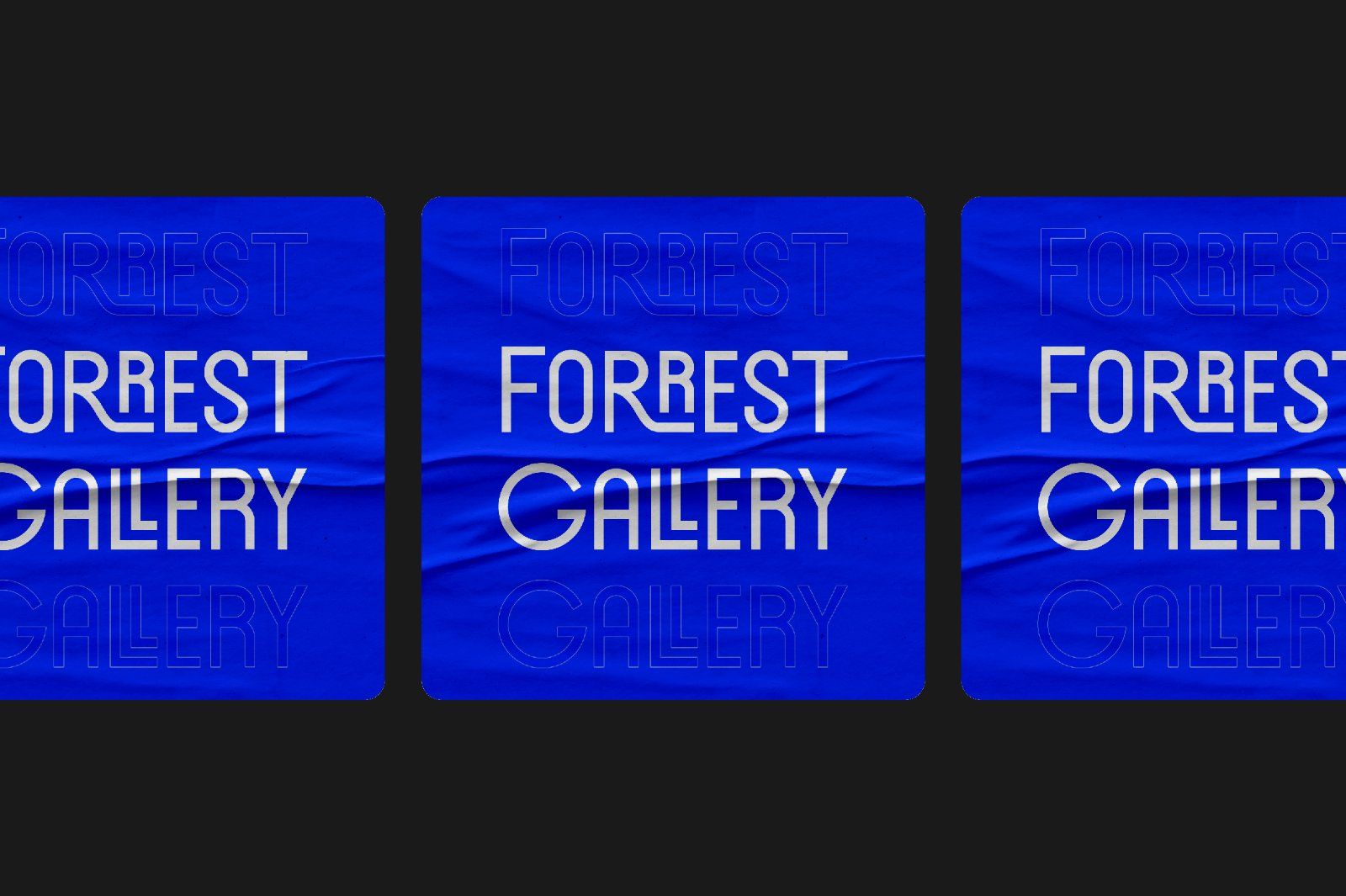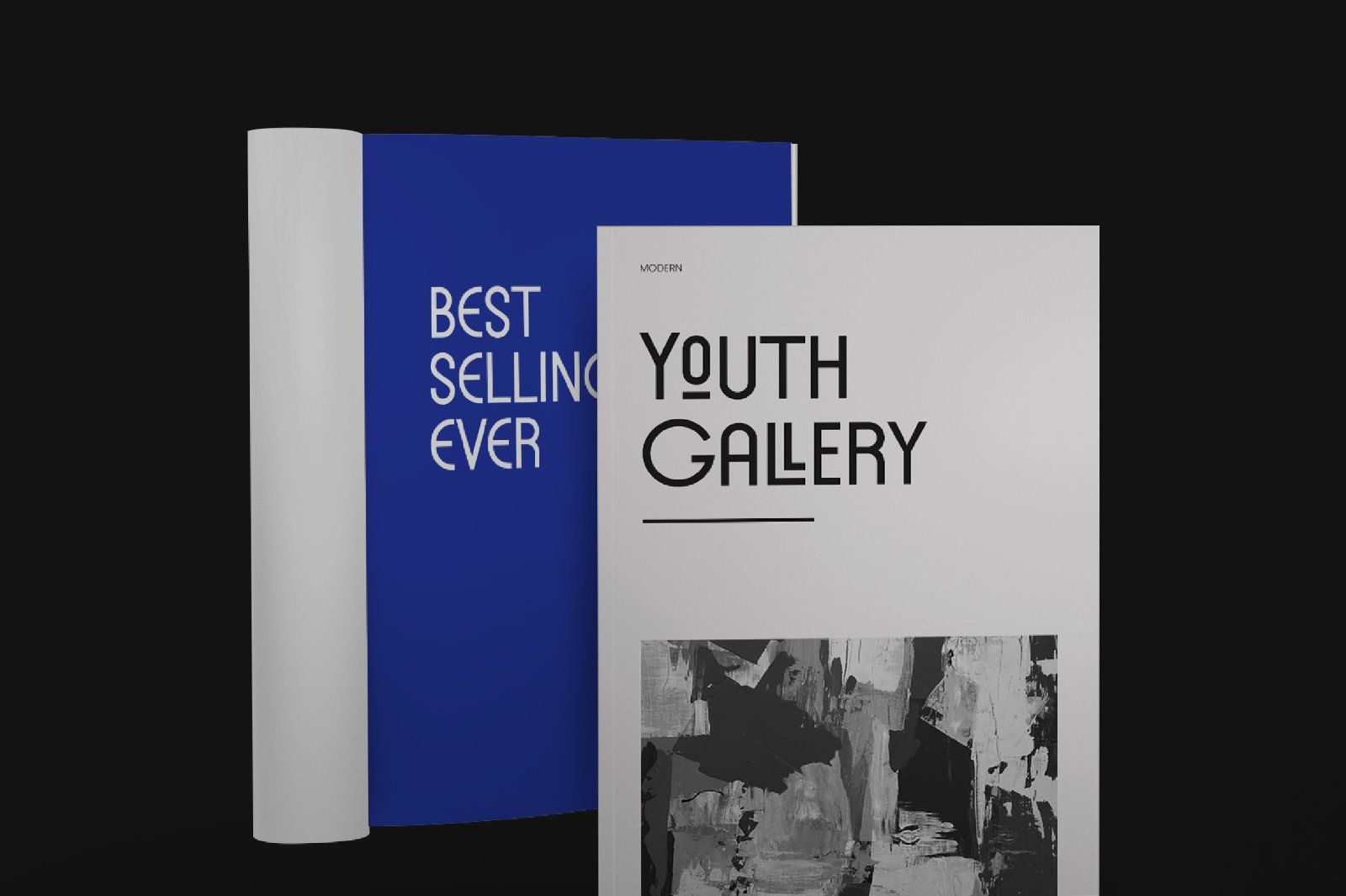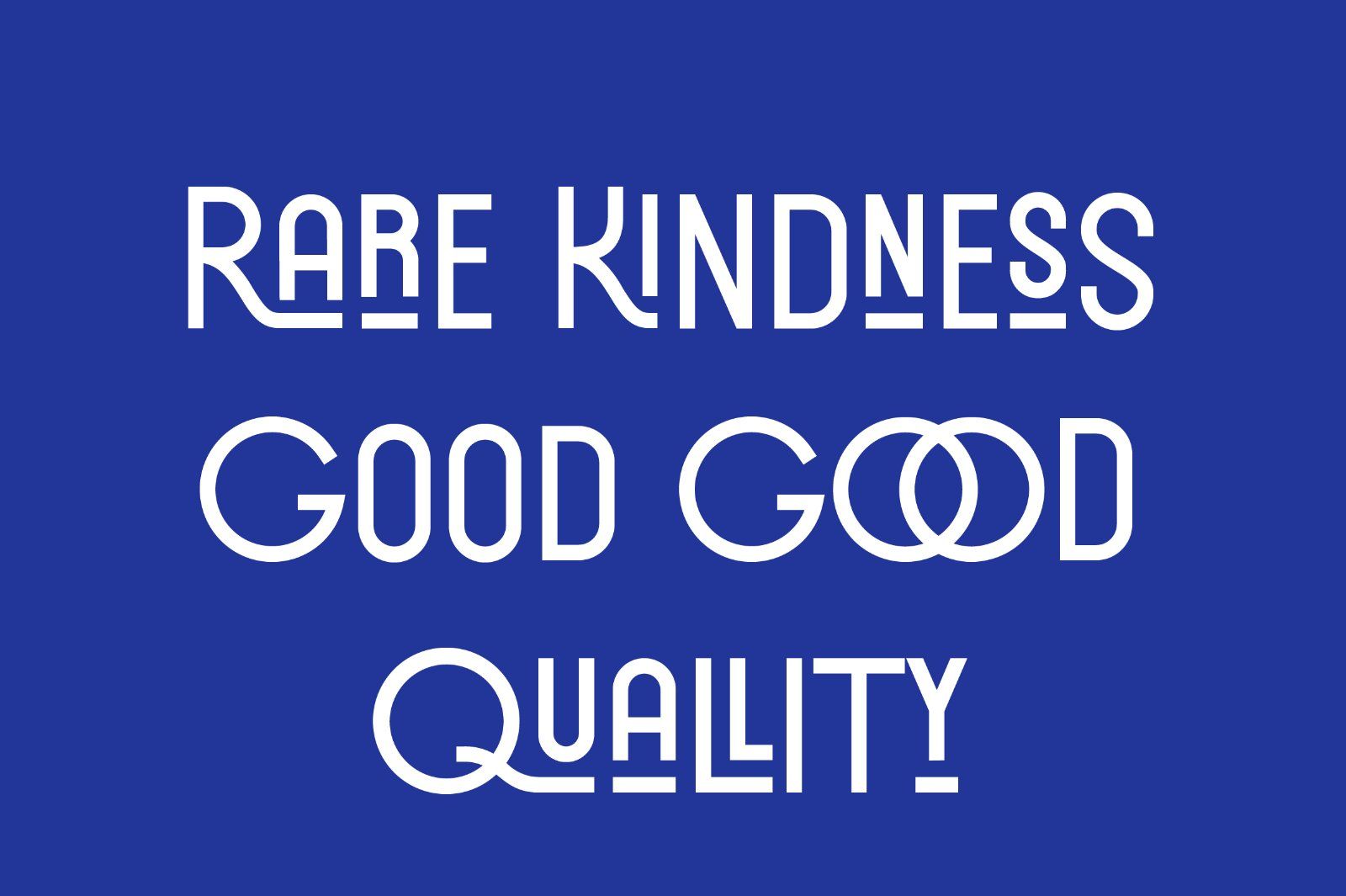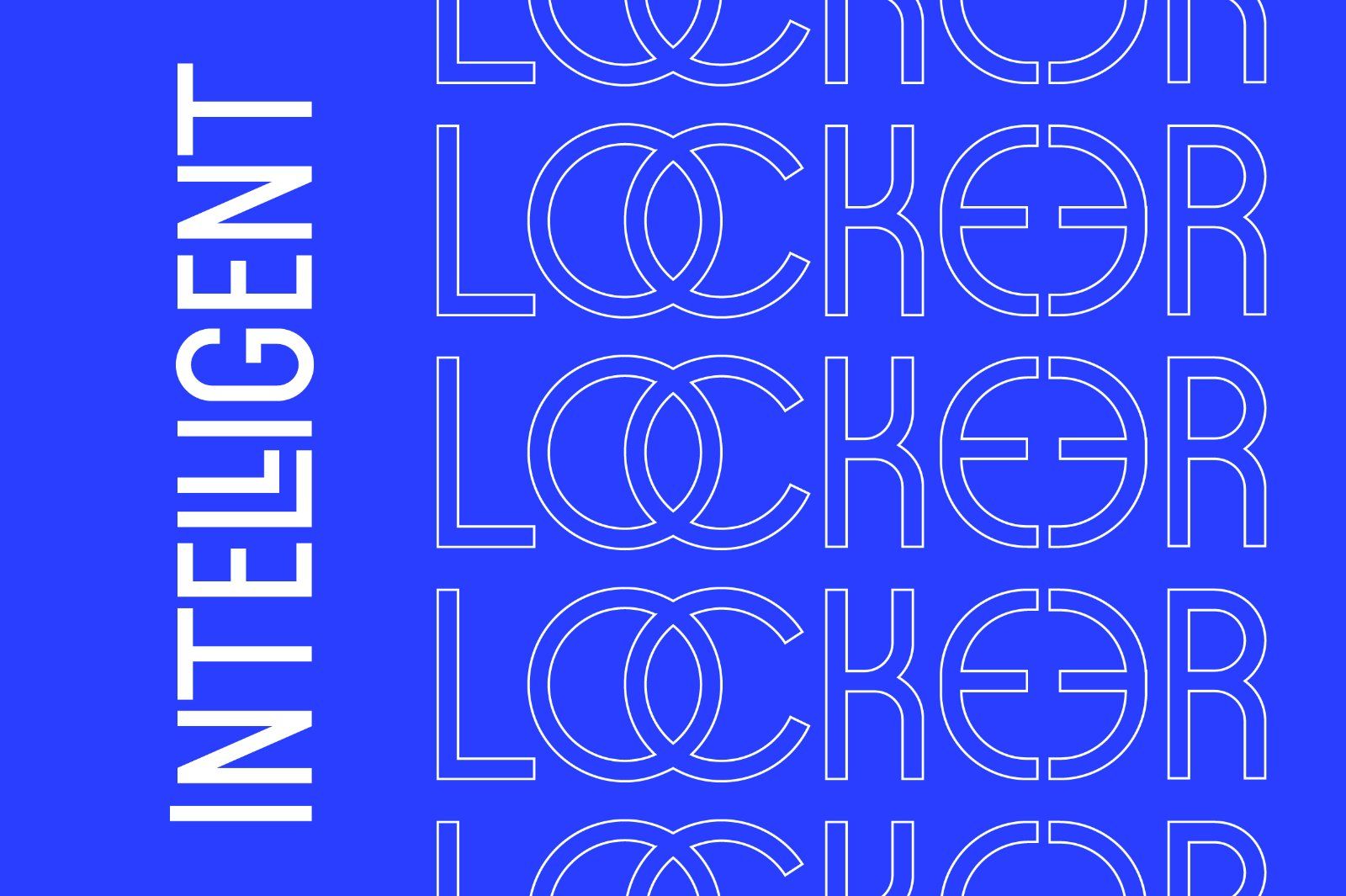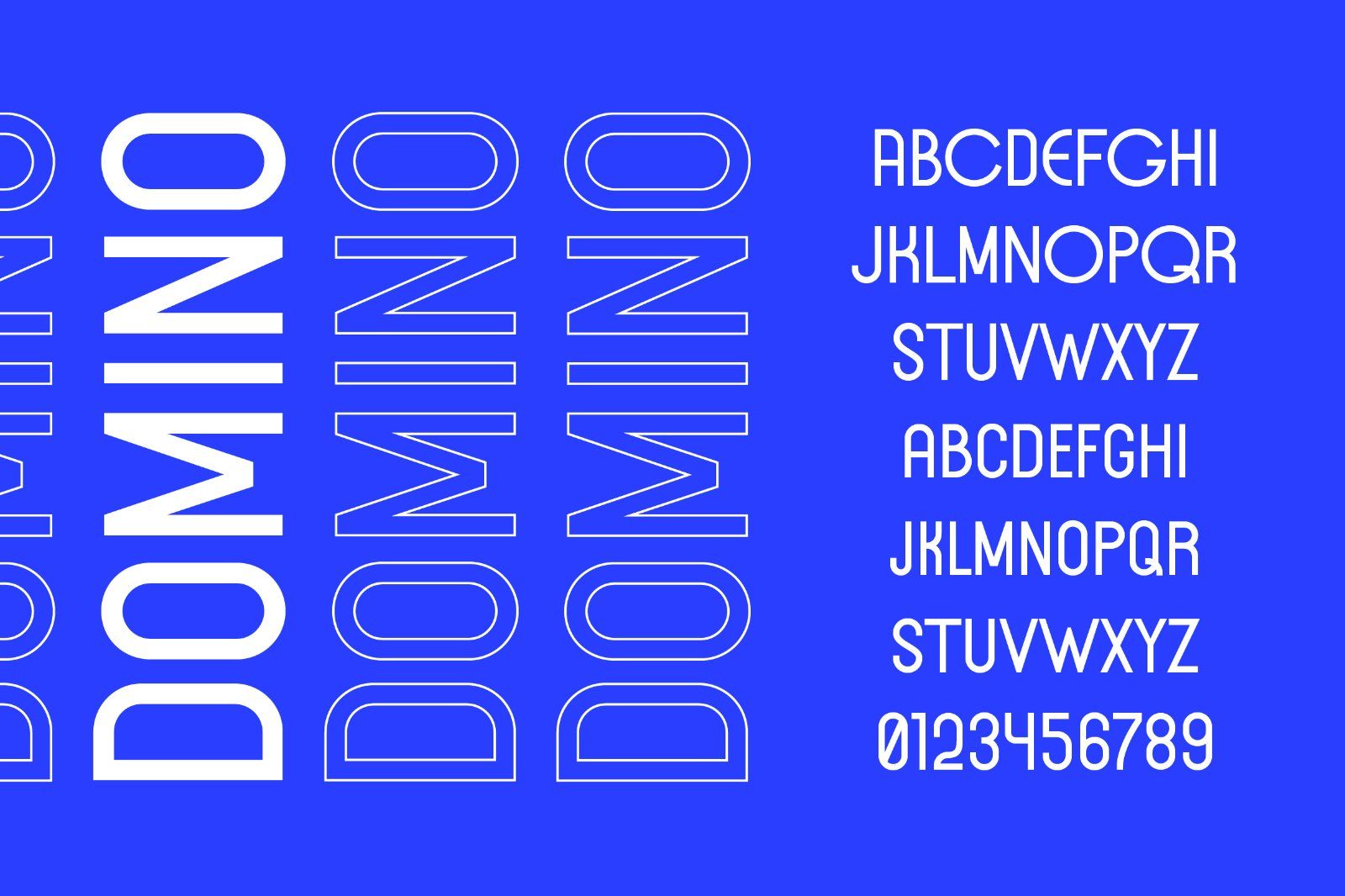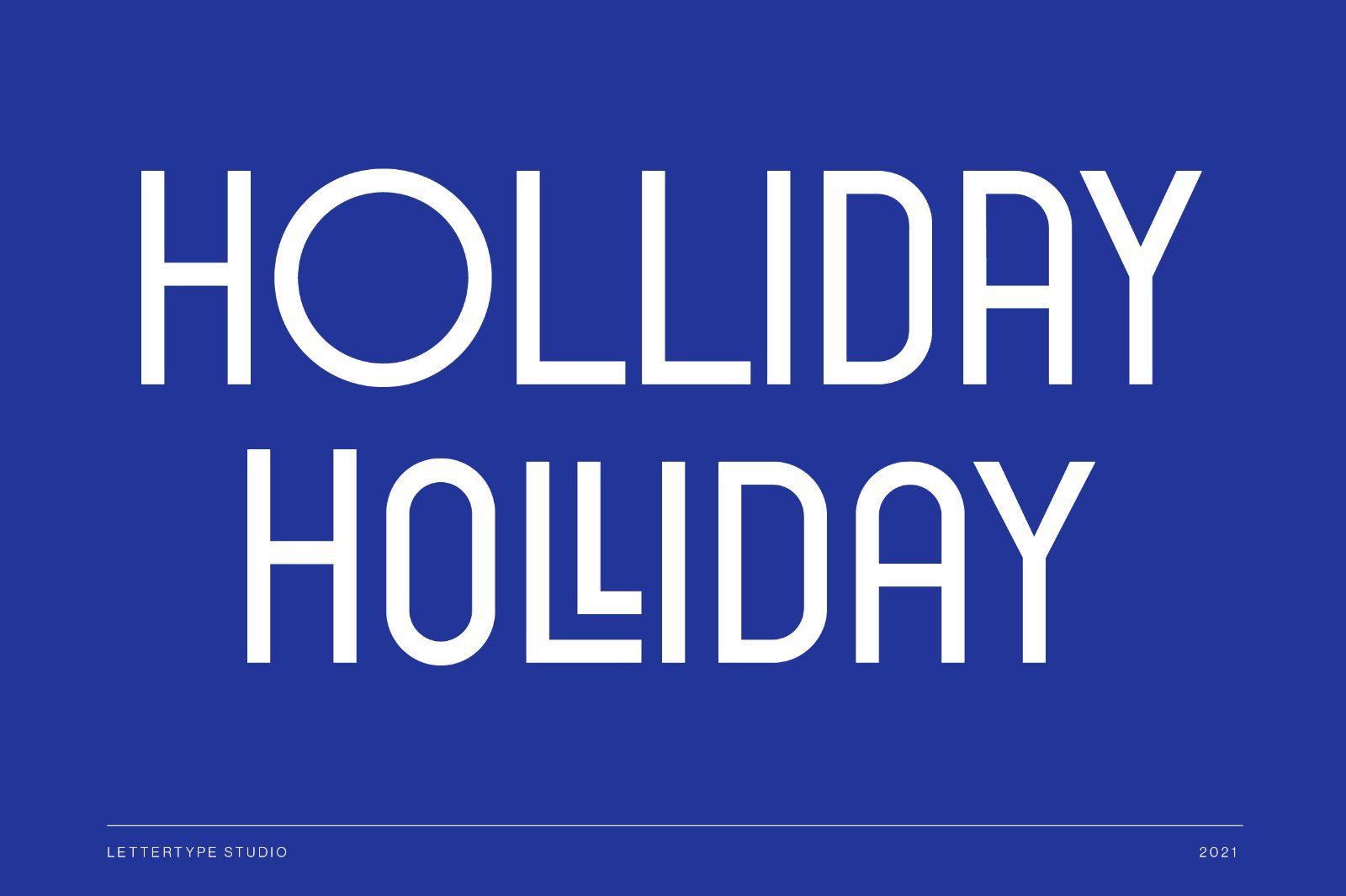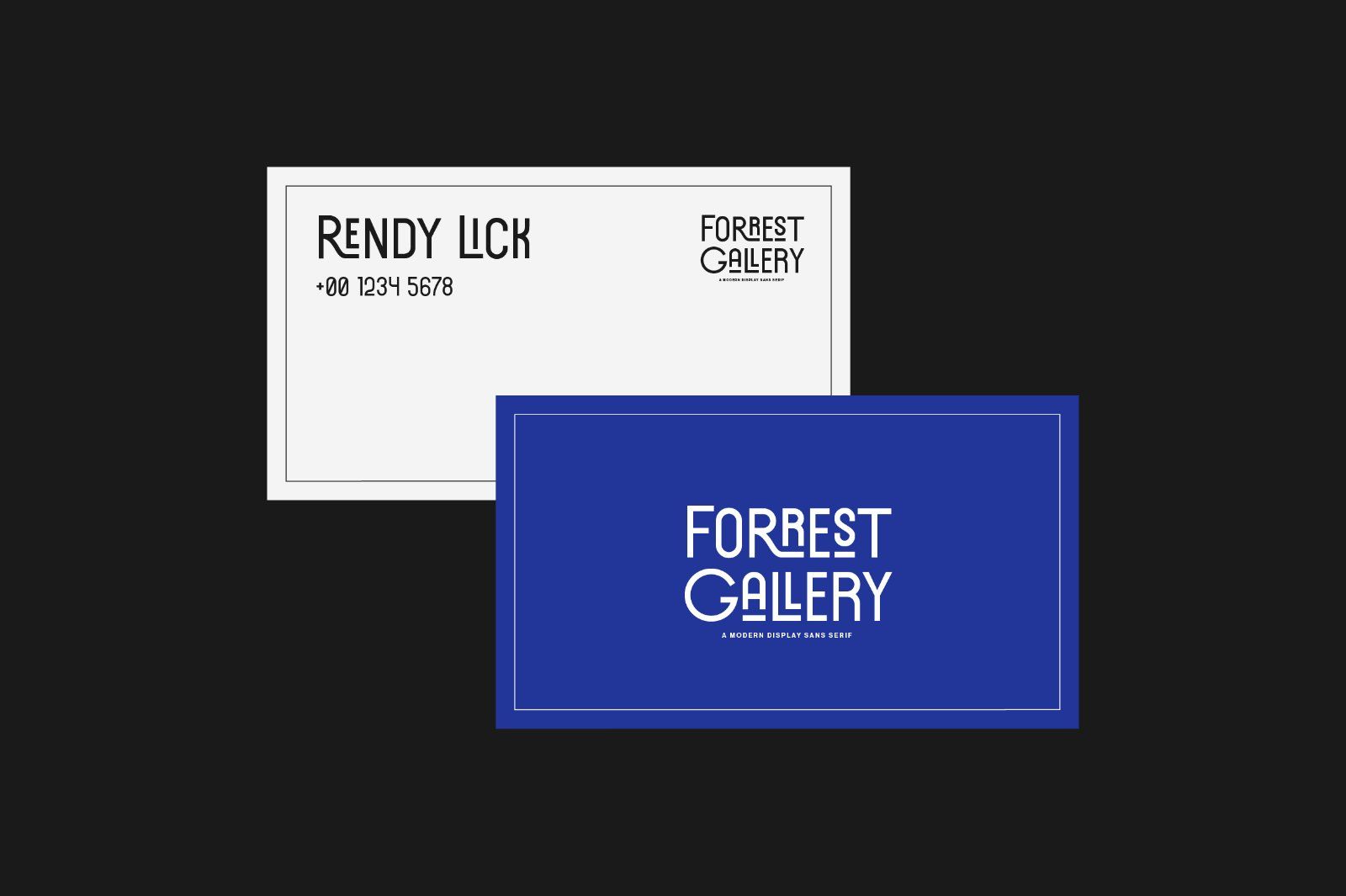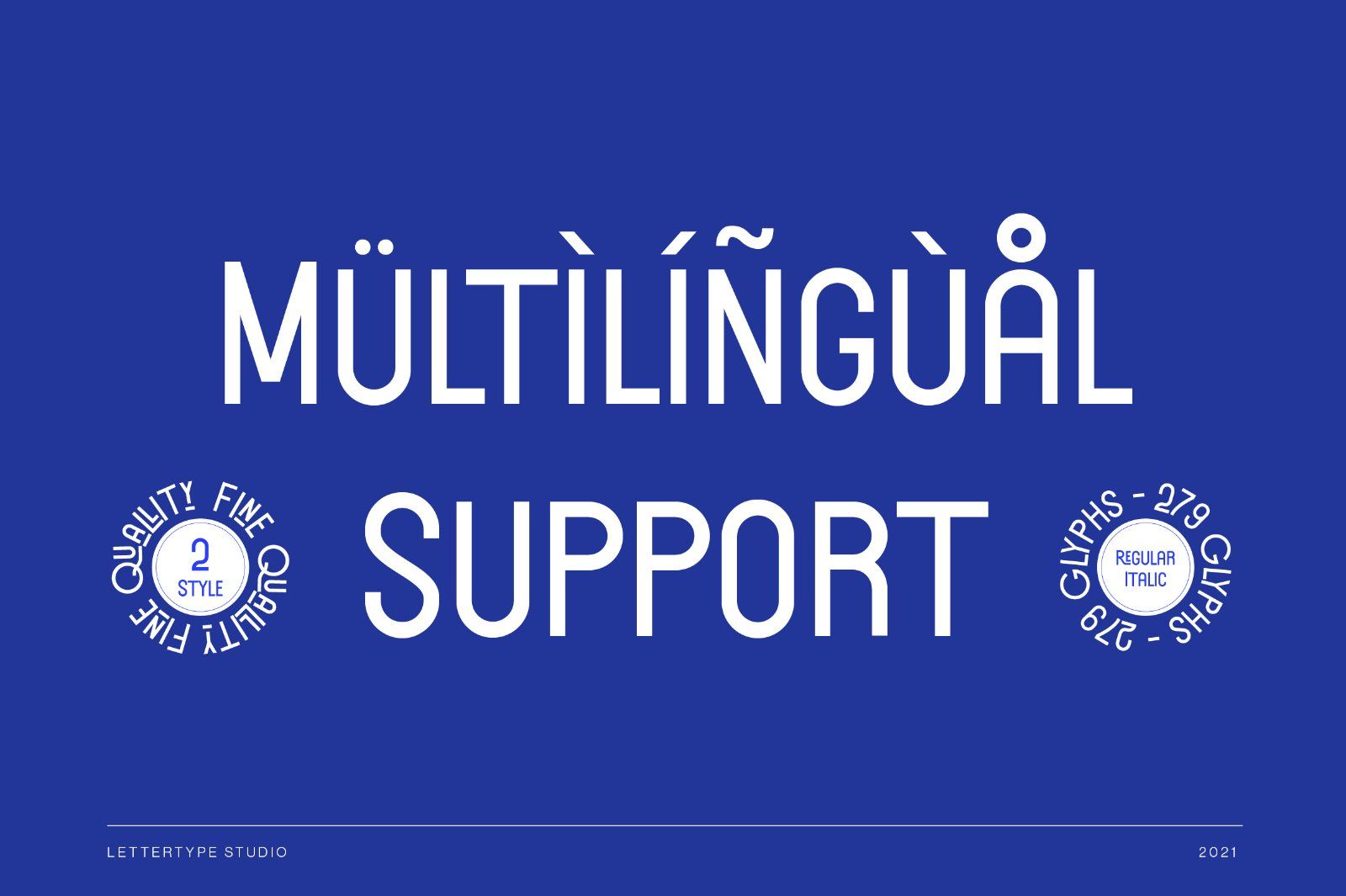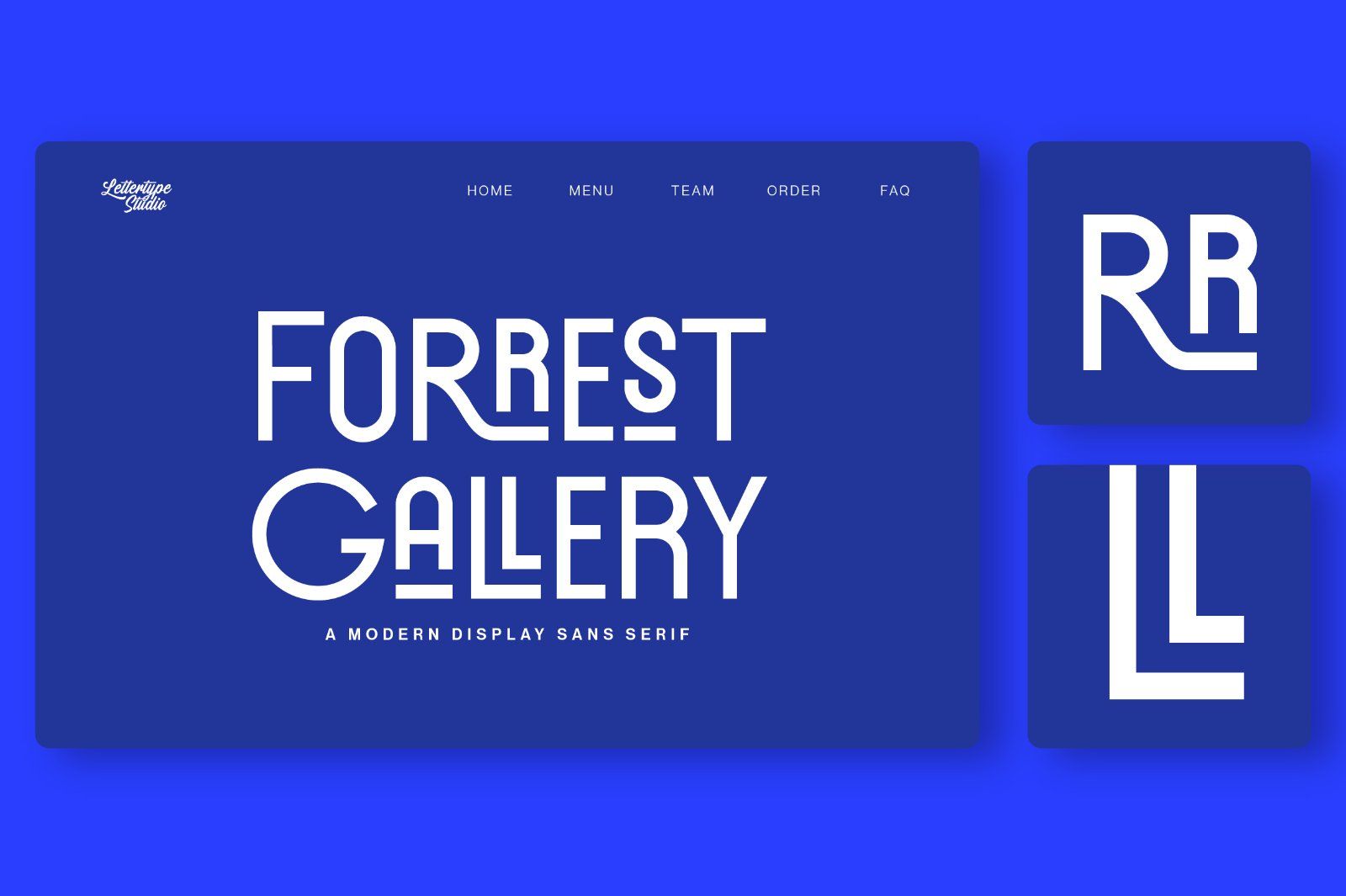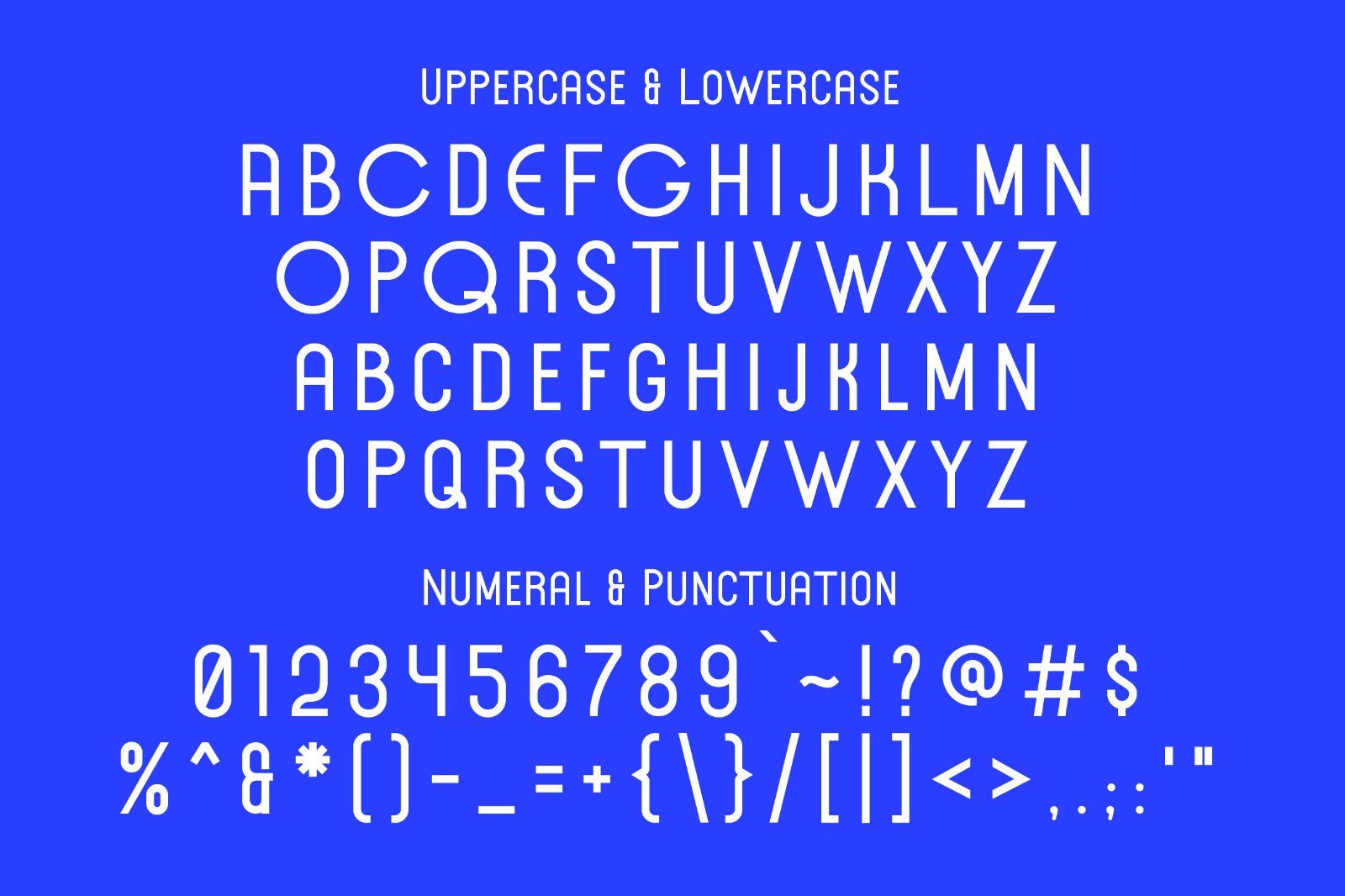
Introducing our new modern display sans serif font Forrest Gallery comes with 2 style (regular and italic), fine quality, and 279 glyphs total in each style font family.
This font will be perfect for logo design, branding, clothing, signage, posters, magazine , brochure, type design and so much more! My goal in creating this font was to make a perfect dislplay sans serif with modern style to make your branding stand out. Don't Miss Out!
• Lowercase and Uppercase
• Tons of Stylistic Ligature (28 stlyes)
• Accented characters
• Forrest Gallery 2 Style Font (Regular and Italic)
• Multiple Languages Supported